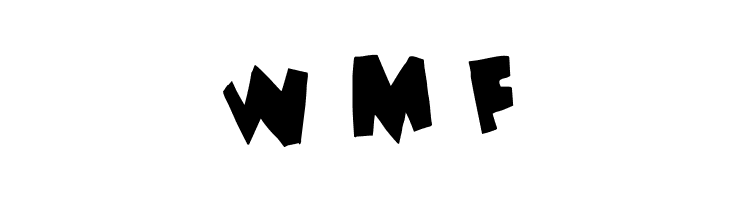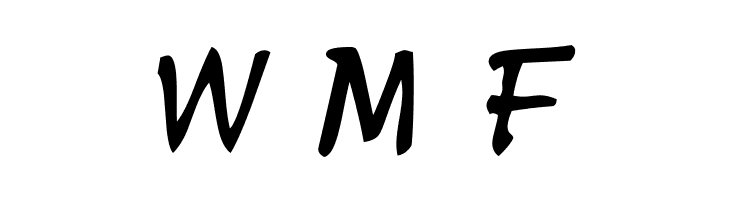
A bold, futuristic font with angular, geometric shapes and a dynamic slant.
A bold, medieval-inspired font with sharp, angular edges and a hand-crafted look.
A bold, cartoonish font with thick outlines and a playful style.
A bold, rounded font with a playful, retro vibe.
A bold, futuristic font with geometric and rounded letterforms.
A bold, handwritten font with a playful and dynamic style.
A bold, graffiti-inspired font with sharp, angular lines and dynamic curves.
A playful, smiley-adorned decorative font perfect for fun and engaging designs.
A playful, balloon-themed font perfect for festive and joyful designs.
A pixelated, retro-style font with a digital display aesthetic.
A bold, playful font with exaggerated, irregular shapes and dynamic energy.
A futuristic, geometric font with bold, pixelated outlines.
A futuristic, geometric font with clean lines and open forms.
A bold, expressive font with jagged, graffiti-like edges.
A futuristic, geometric font with bold, angular letterforms.
A bold, playful font with geometric elements and dynamic character shapes.
A bold, fiery font with jagged, distressed characters.
A bold, pixelated font with a retro digital display style.
A bold, angular font with a dynamic, slanted design.
A bold, hand-drawn font with dynamic, angular strokes and an expressive style.
A bold, handwritten font with a playful and dynamic style.
A futuristic, geometric font with bold, angular characters.
A modern, geometric font with crown motifs, ideal for decorative use.
A bold, angular font with a dynamic slant, ideal for impactful designs.
A bold, outlined font with a playful, cartoonish style.
A playful, hand-drawn font with irregular, energetic strokes.
A bold, geometric font with a digital, futuristic style.
A bold, angular font with a dynamic and energetic style.
A bold, geometric font with sharp angles and a modern aesthetic.
A bold, pixelated font with a retro video game aesthetic.
A futuristic, circuit-inspired font with bold geometric shapes and intricate line work.
A bold, angular font with a rugged, hand-drawn style.
A bold, decorative font with a playful, hand-drawn style and rugged outlines.